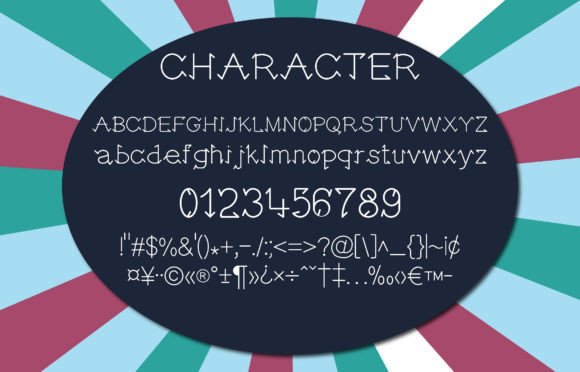
Timothea Font
TIMOTHEA FONT SPECIMEN
Timothea is a friendly and fun slab serif font perfect for any project. Timothea is an attractive font that looks cute, friendly, and fun. Whether you’re using it for crafts, digital design, presentations, or creating greeting cards. It’s a super fun and charming font that goes anywhere!